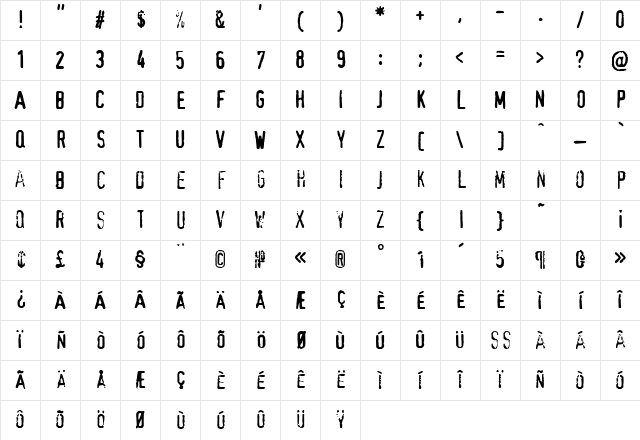
Confidential Regular
Design Context for Confidential
Confidential is a composed and adaptable typeface that performs quietly and consistently across a wide range of design contexts.